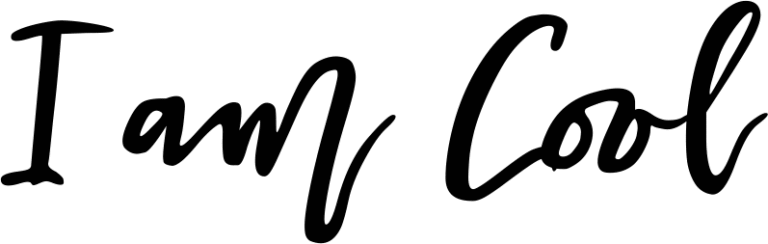
Monera Calm Font
Designed byFatmaStudio
If your main intention is to add an artistic and dramatic touch to content such as book covers, social media posts, flyers, and stickers, you can use a beach script font such as Monera Calm. Characters of this font which is designed in a brush style, add a sense of personalization, innovation, and empathy to the artwork.